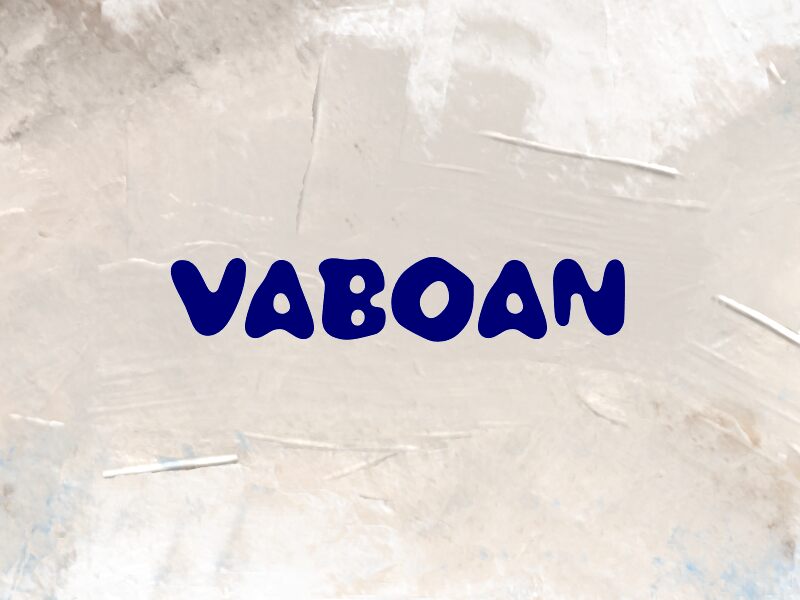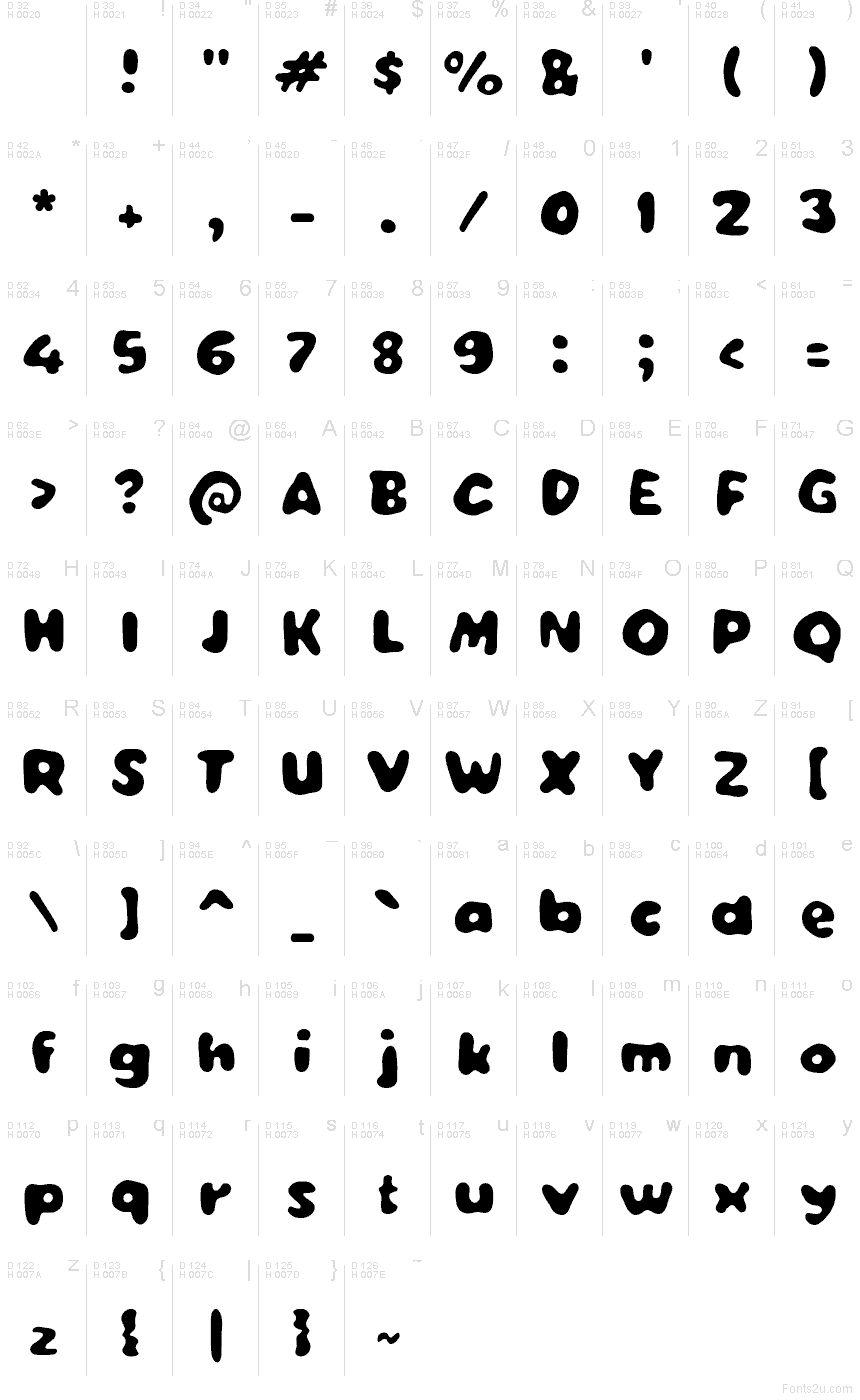
VABOAN
Vaboan font by wep is a free cartoon display typeface with thick, inky letters that feel soft and squishy on the page. Each character has a chunky, hand-drawn wobble, like it’s been shaped out of clay, giving your titles a playful, huggable energy. The bold weight and generous curves make words pop instantly, even at a glance.
Using Vaboan, you can bring quirky character to kids’ logos, game titles, snack packaging, birthday invitations, posters, and YouTube thumbnails. This free font shines when it’s big and loud, so let it lead your layouts and pair it with a clean, narrow sans serif for any supporting text.